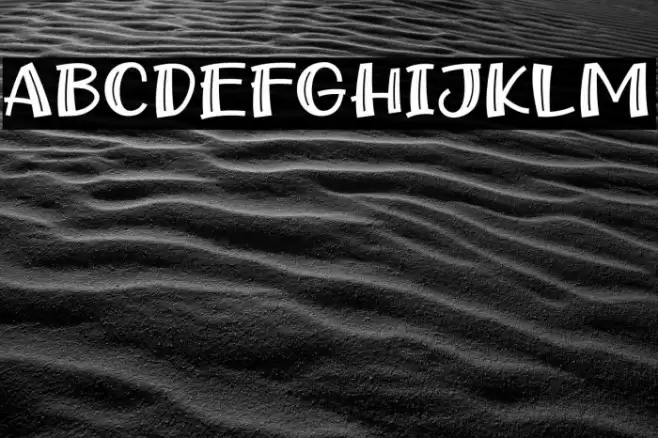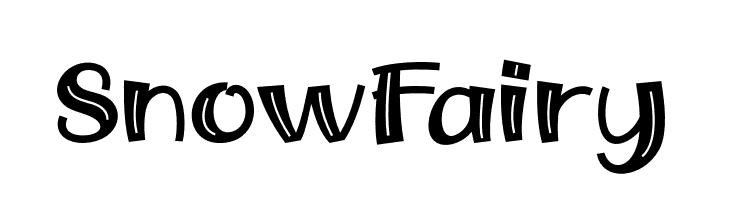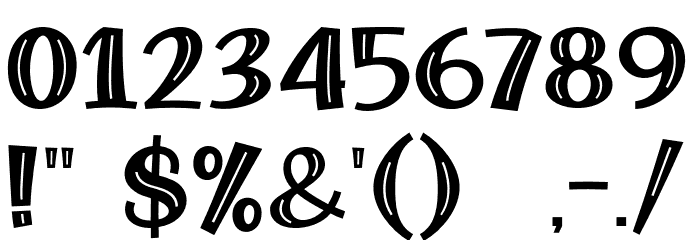
Snow Fairy Font
Snow Fairy Description
This playful and whimsical font features bold, rounded characters with a hand-drawn appearance. The strokes are uneven, adding a sense of movement and energy to the text. The uppercase letters are slightly wider than the lowercase, which have a more compact and cozy feel. Numbers and special characters maintain the same lively style, making the font versatile for various uses. The overall design is reminiscent of a casual, fun atmosphere, perfect for projects that require a touch of creativity and lightheartedness.
A playful, hand-drawn style font with bold, rounded characters from Cartoon fonts.
- Proposed Projects: Ideal for children's books, playful branding, greeting cards, and creative posters.
- Overall Style: Whimsical, Playful